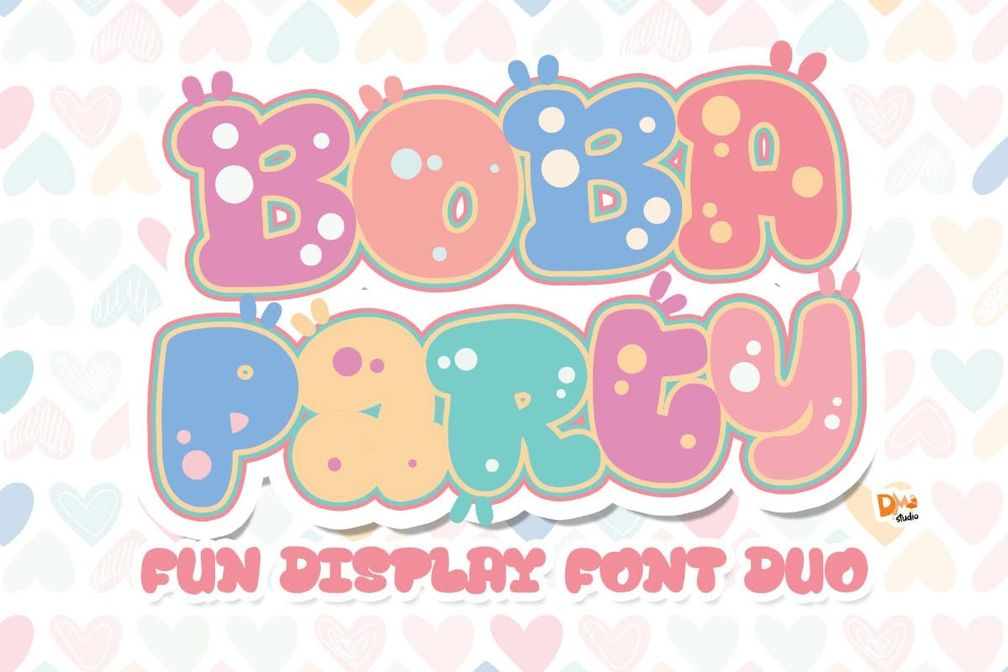
Boba Party Font
Introducing Boba Party Font, a playful and bubbly typeface that brings a festive atmosphere to your designs. With its whimsical letterforms and delightful style, this font is perfect for invitations, party decorations, signage, and more. Add a touch of fun and excitement to your projects with Boba Party Font.
1. Playful and Bubbly Design: Boba Party Font features a fun and bubbly design that adds a festive vibe to your text.
2. Versatile in Application: Ideal for various design projects such as invitations, party decorations, posters, and more, bringing a sense of celebration to your designs.
4. Uppercase and Lowercase Letters: Includes both uppercase and lowercase letters for creative flexibility.
5. Ligatures and Special Characters: Offers ligatures and special characters to enhance the visual appeal and uniqueness of your typography.
6. Punctuation and Symbols: Comprehensive set of punctuation marks, numerals, and symbols for versatile use.